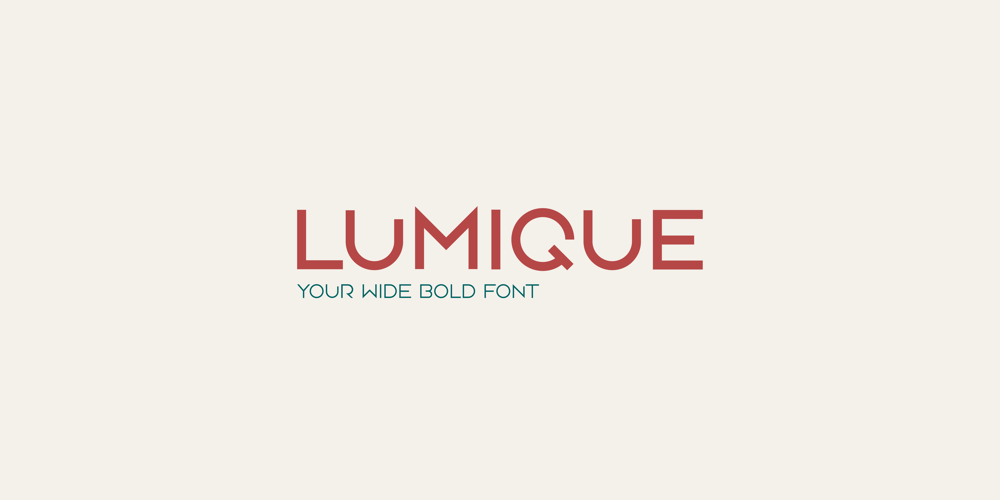
Lumique Font Family was designed by Philip Brader and published by PhilsType. Lumique contains 3 styles and family package options. Lumique Typeface: Nature-Inspired Elegance for Modern DesignIntroducing Lumique, a font ignited by the visual beauty of nature. Each letter is meticulously crafted, drawing inspiration from the asymmetrical elements found in the natural world, adding depth and character to every design.Perfect for titles, short texts, and creative implementations, Lumique adds a touch of distinctiveness to your branding, web design, or print materials. With its blend of artistry and practicality, Lumique empowers you to effortlessly bring your ideas to life.Explore Lumique’s versatility with its range of features, including stylistic alternates and ligatures. Supporting the English alphabet, accent marks, numbers, and a diverse set of special characters, Lumique offers everything you need for your design projects.Discover Lumique Typeface—where nature inspires modern creativity. Elevate your projects and let Lumique be the cornerstone of your design journey.